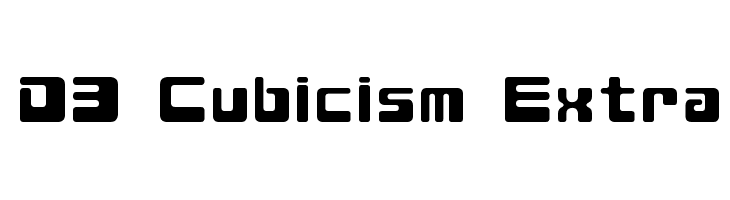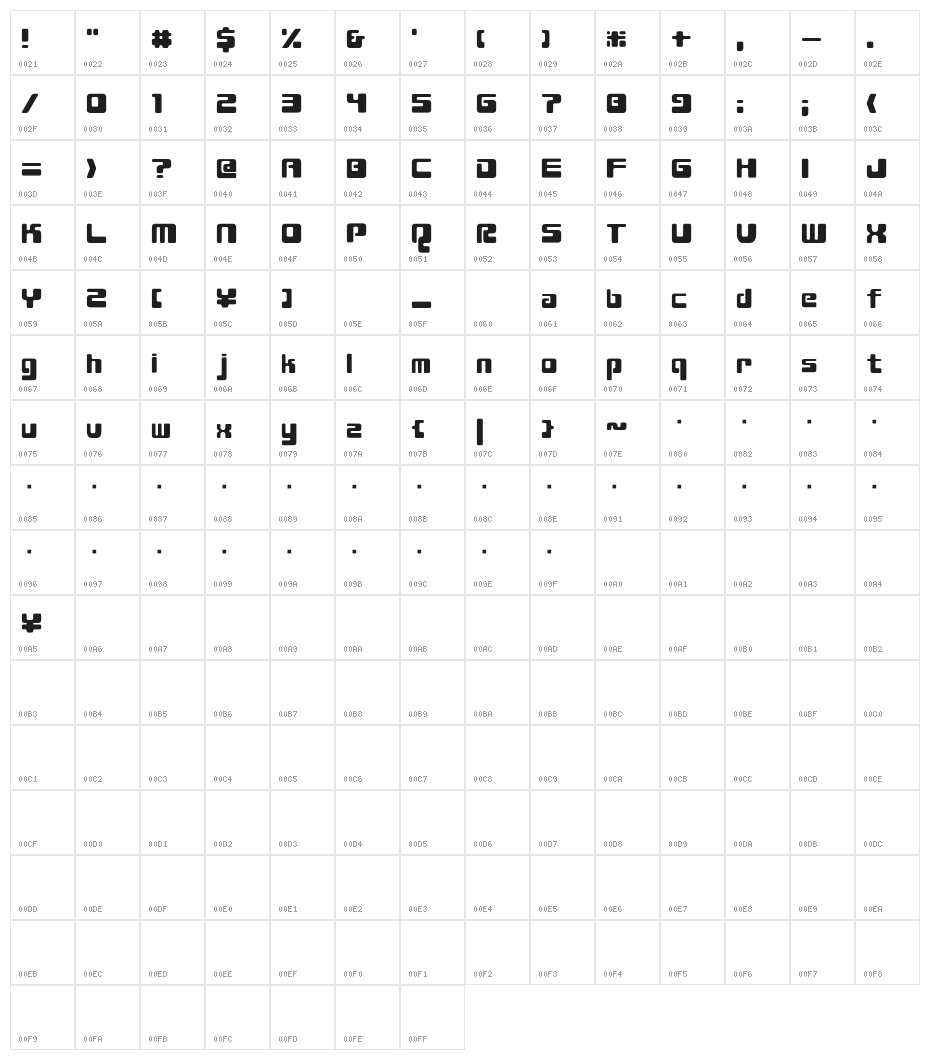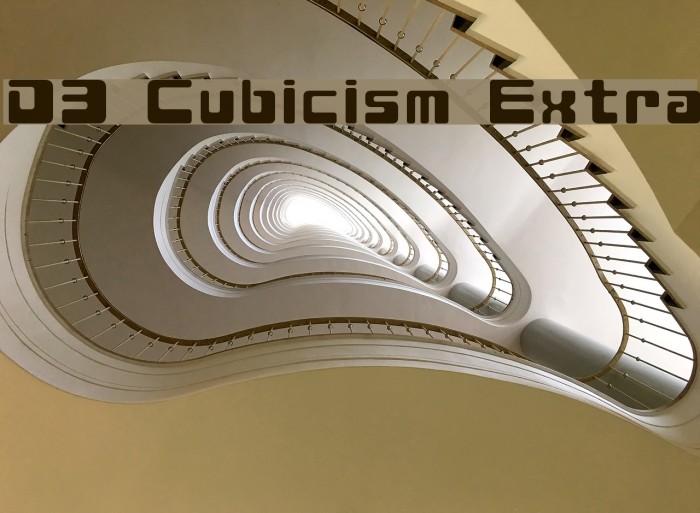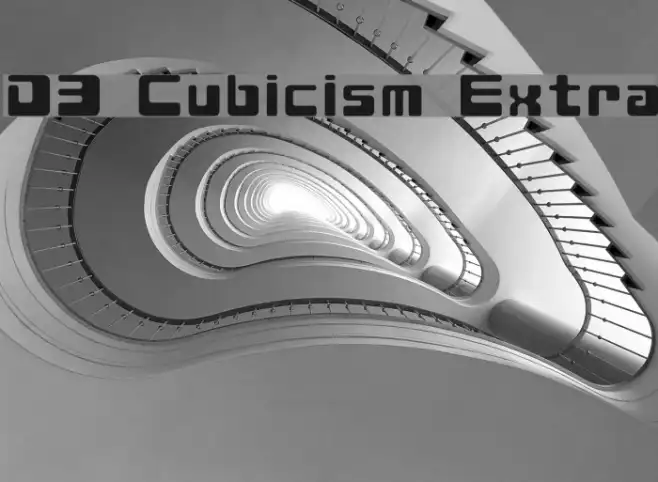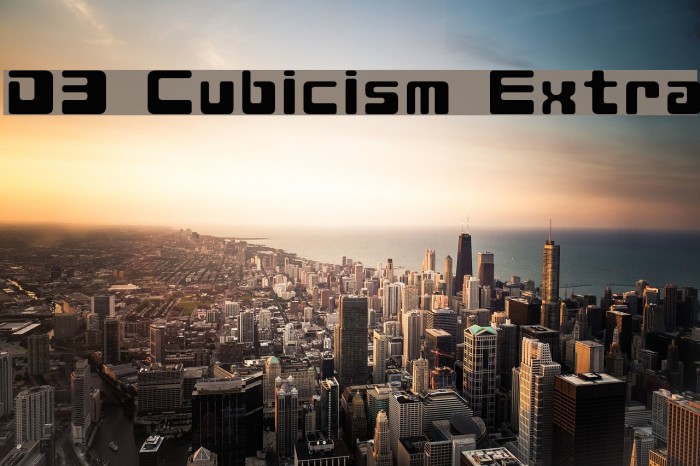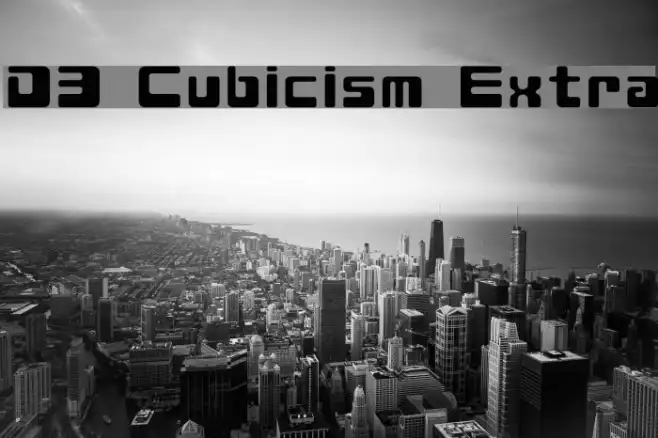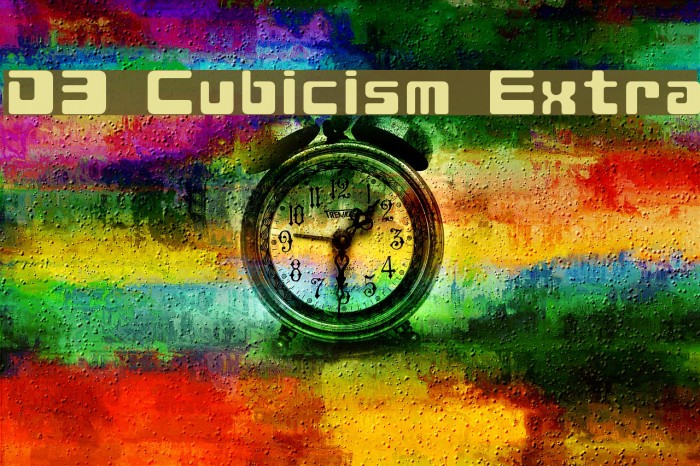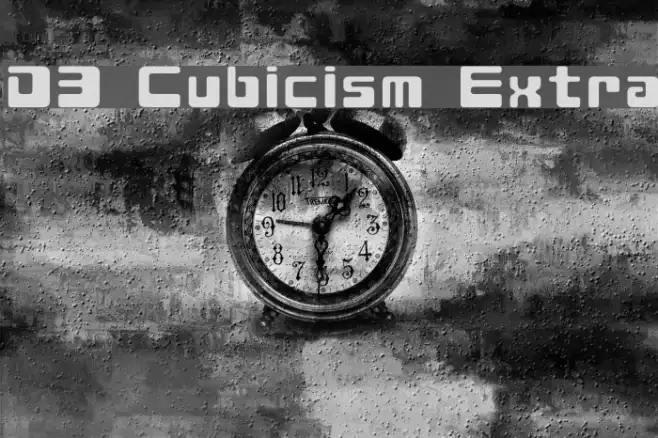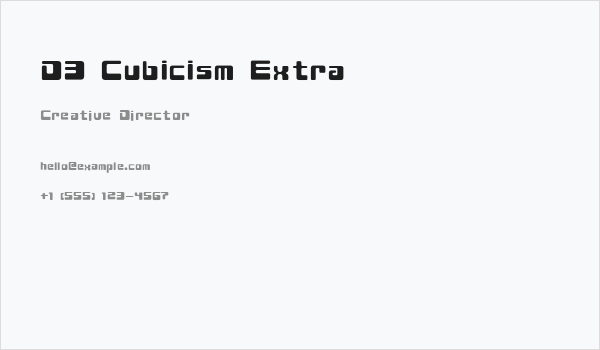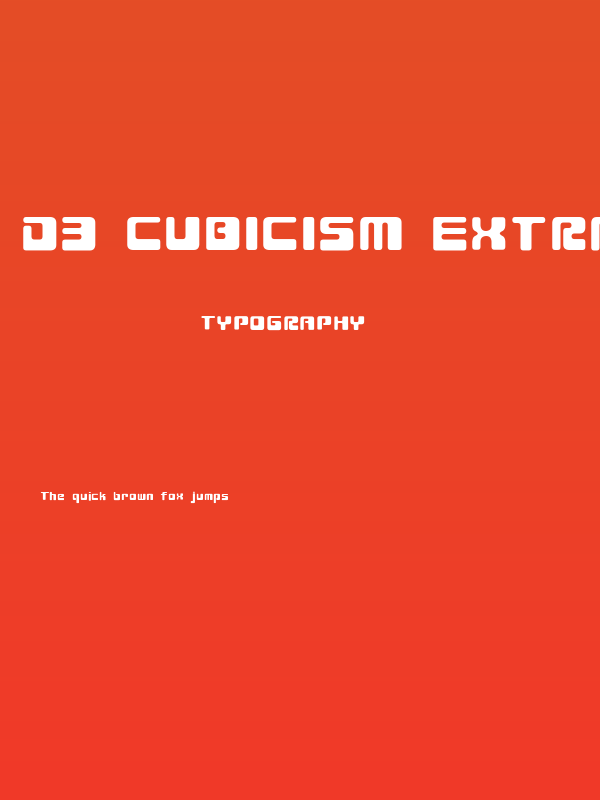
D3 Cubicism Extra Font
D3 Cubicism Extra Description
This font features a bold, geometric design with a strong emphasis on cubic shapes and rounded edges. The characters are uniformly thick, creating a cohesive and modern appearance. The uppercase and lowercase letters maintain a consistent style, with a slight variation in height and width to distinguish them. Numbers and special characters follow the same design principles, ensuring a harmonious look across all glyphs. The font's unique style is both eye-catching and legible, making it suitable for various creative applications.
| Proposed Projects | Ideal for modern branding, poster design, digital art, and innovative product packaging. |